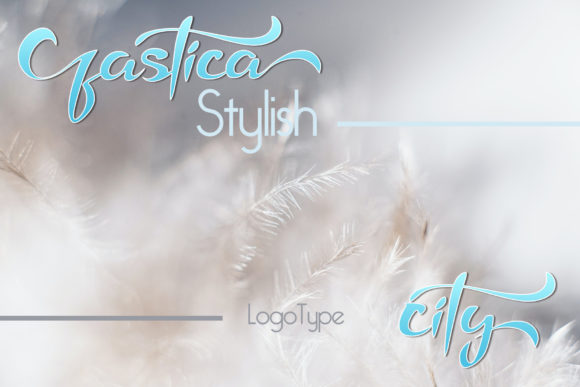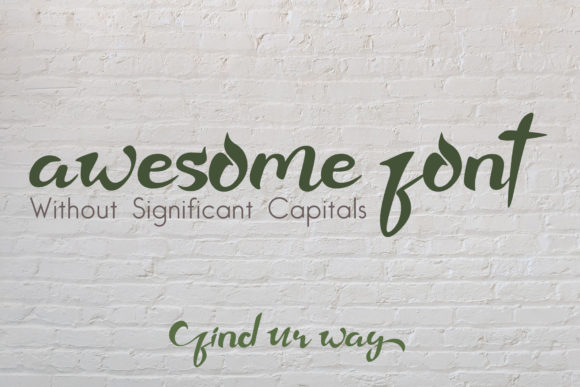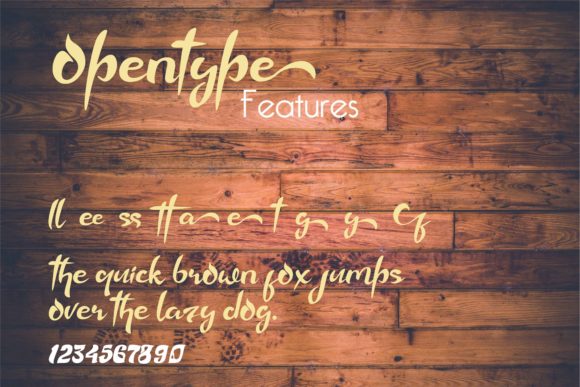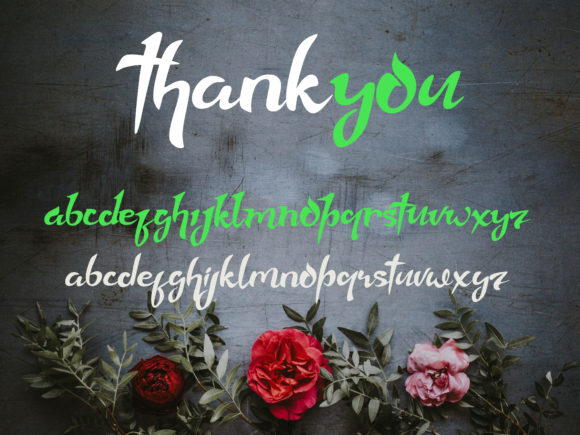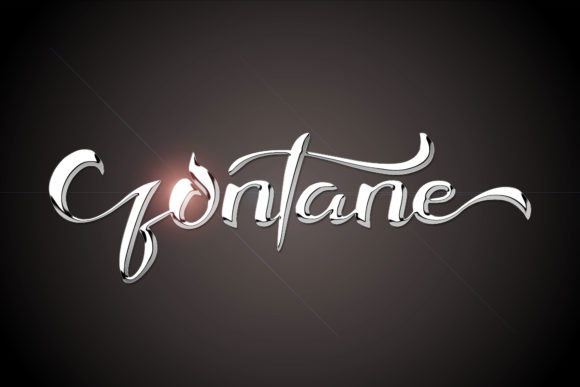
Introduction to Debt Collect Font
Debt Collect is an elegant and dainty handwritten font that features sweet and delicate swashes.
This original look will appeal to a wide range of crafty ideas, from letterheads and titles, to stationery .